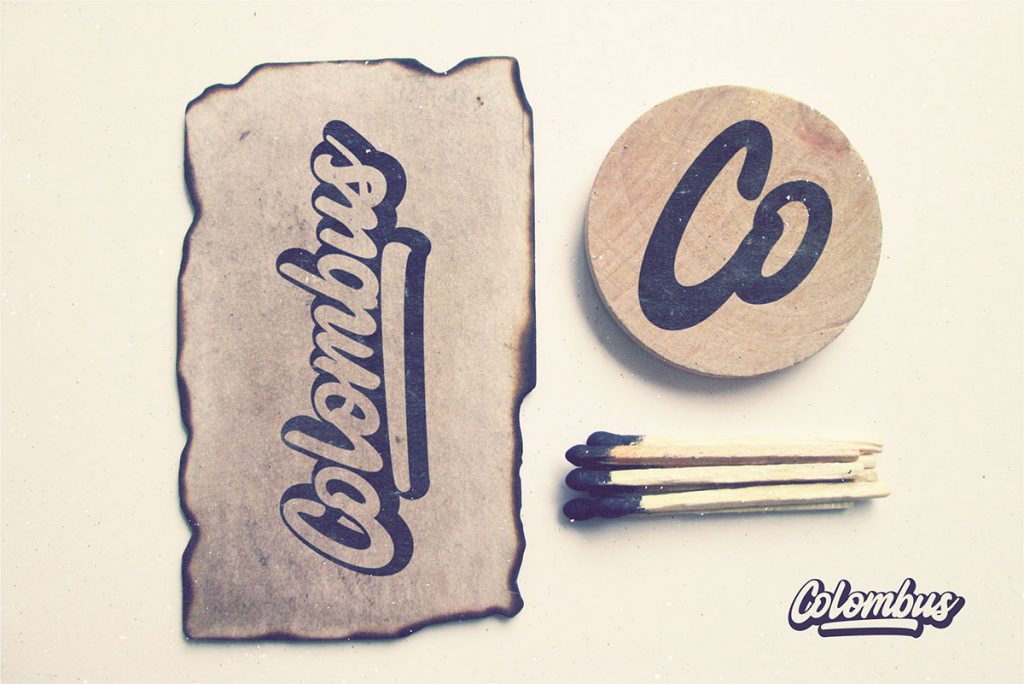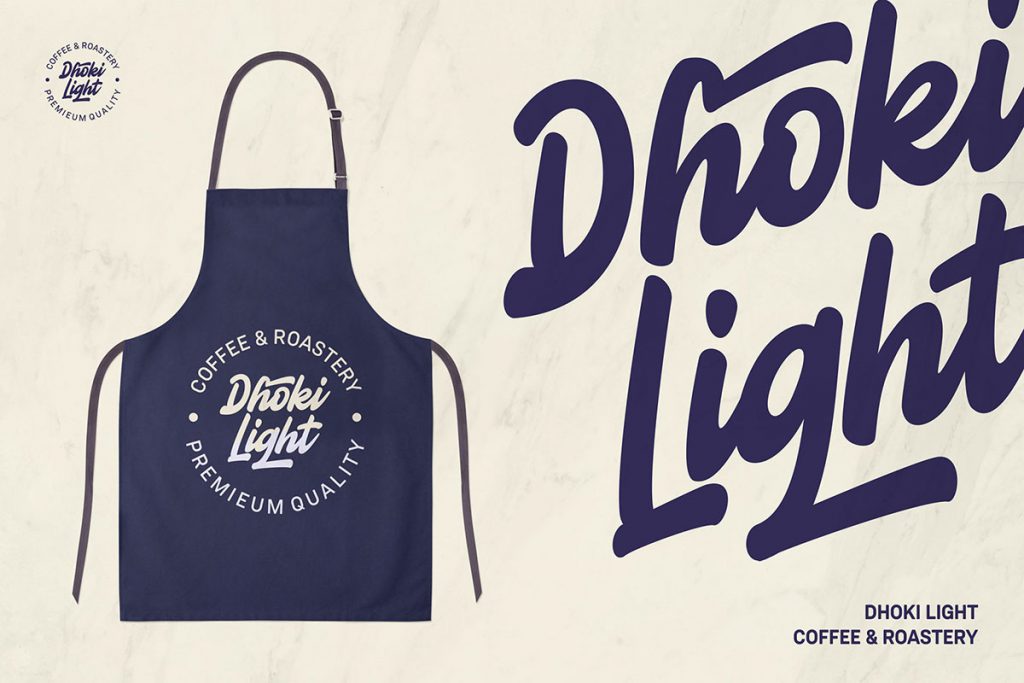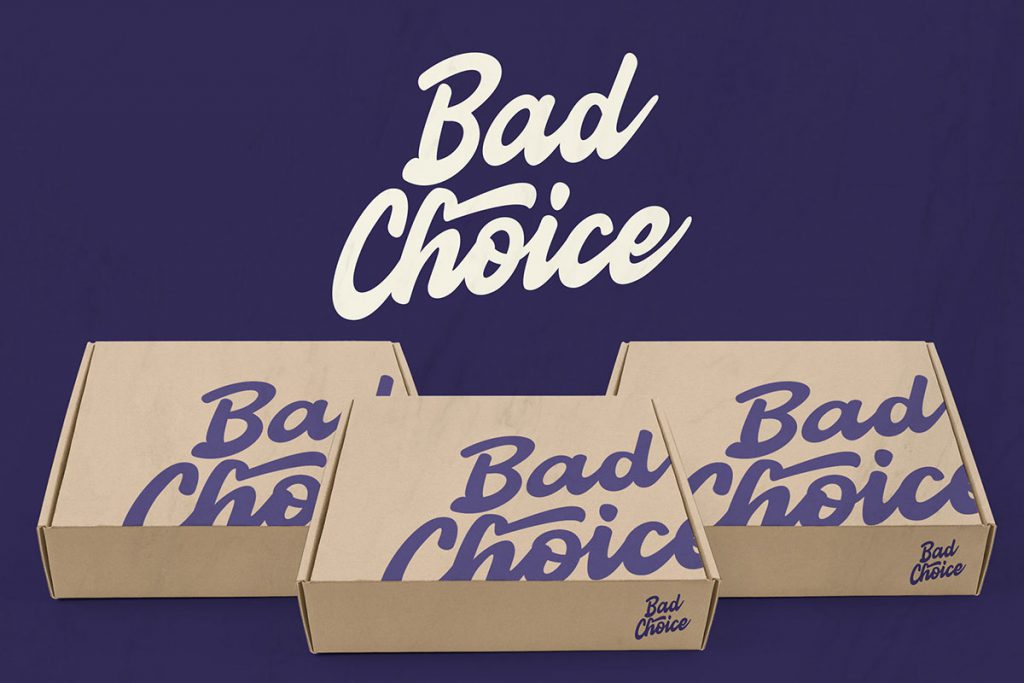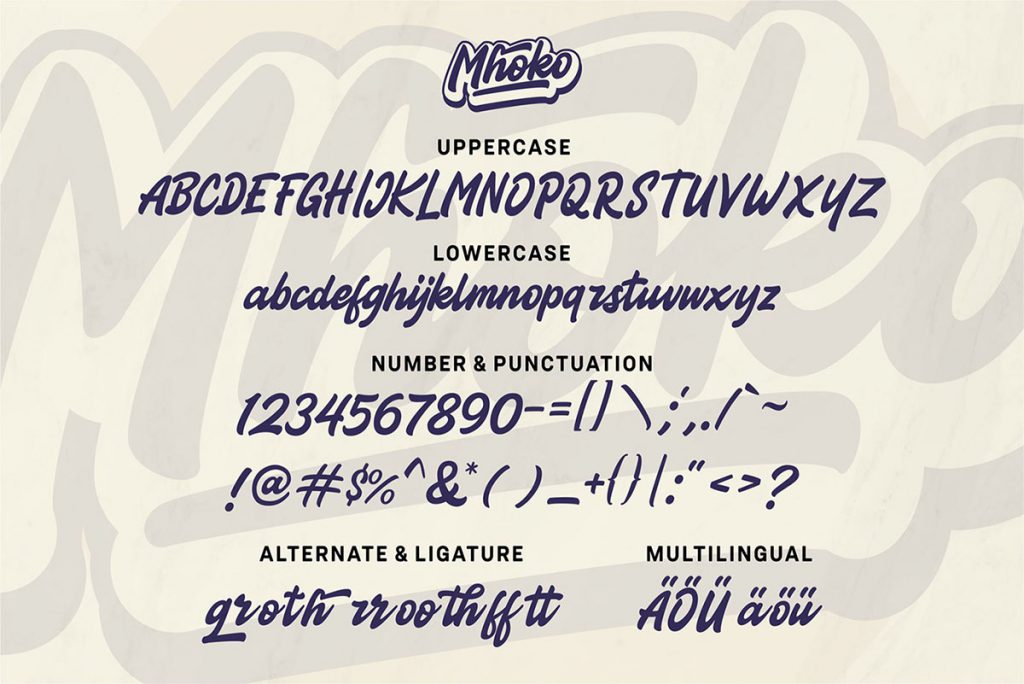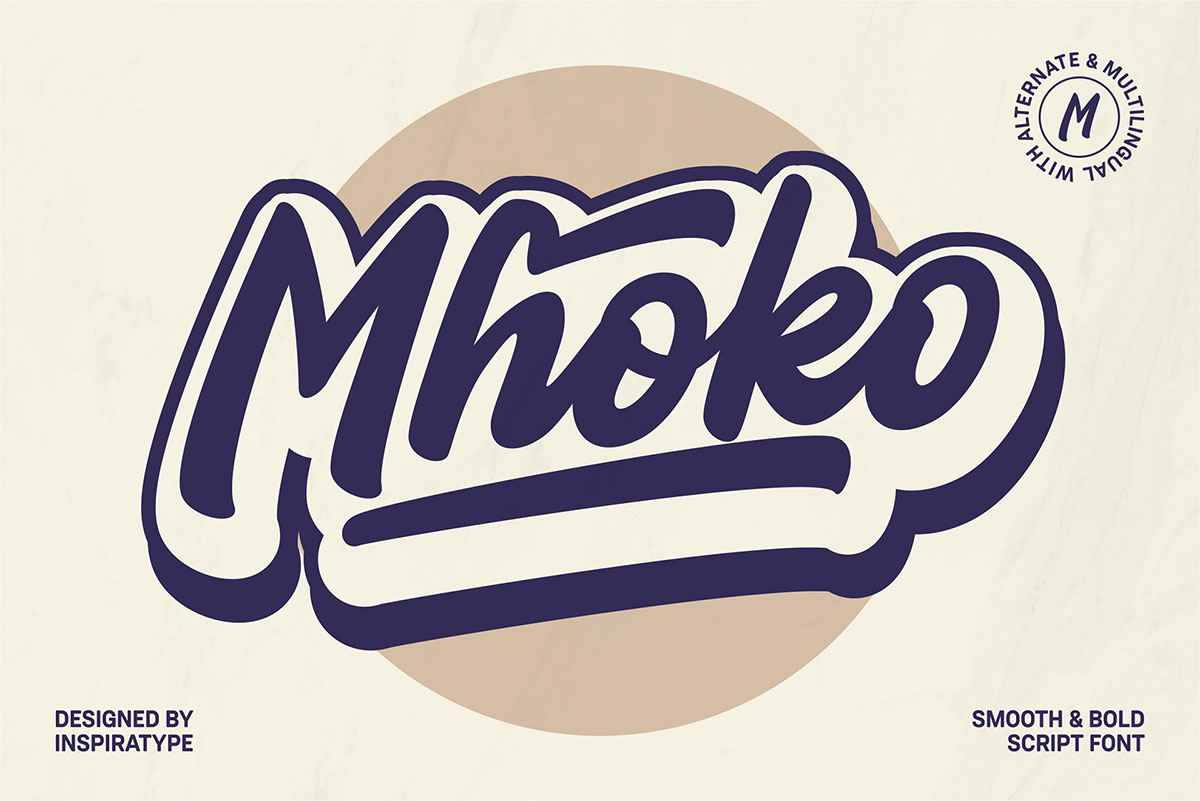
Mhoko Bold Script Font is a handmade font by Inspiratype, the author takes its inspiration from classic posters. It comes with uppercase, lowercase, numerals, punctuations. As we can see, the font works great on Logotype, Letterhead, Poster, Apparel Design, Label and etc.